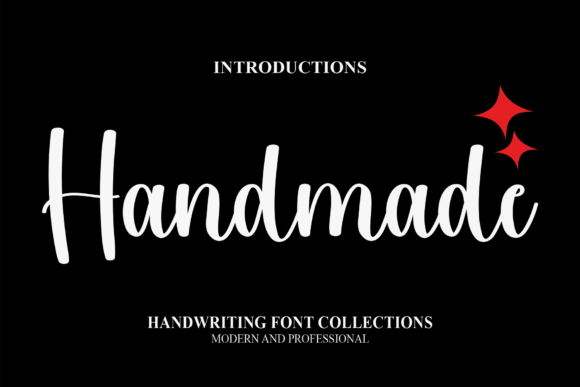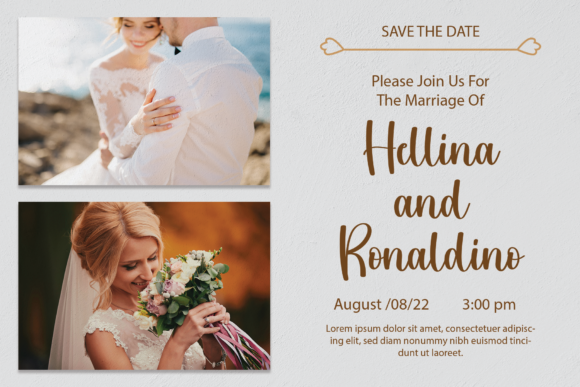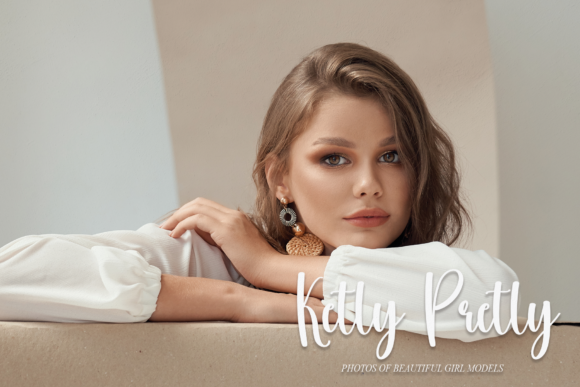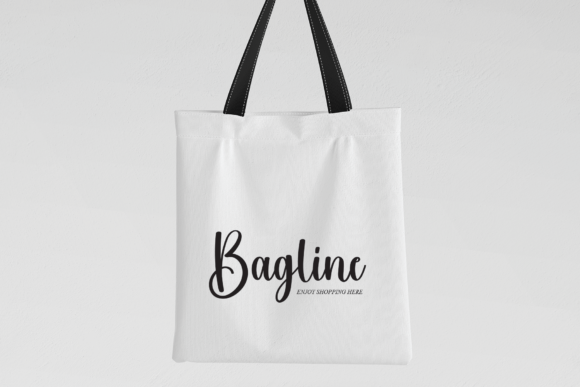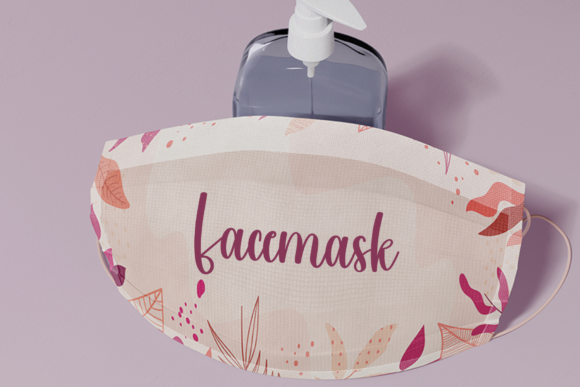
Handmade is a delicate script font, featuring a lovely flow. Get inspired by its versatile style and use it to create gorgeous wedding invitations, beautiful stationary art, eye-catching social media posts, and much more!